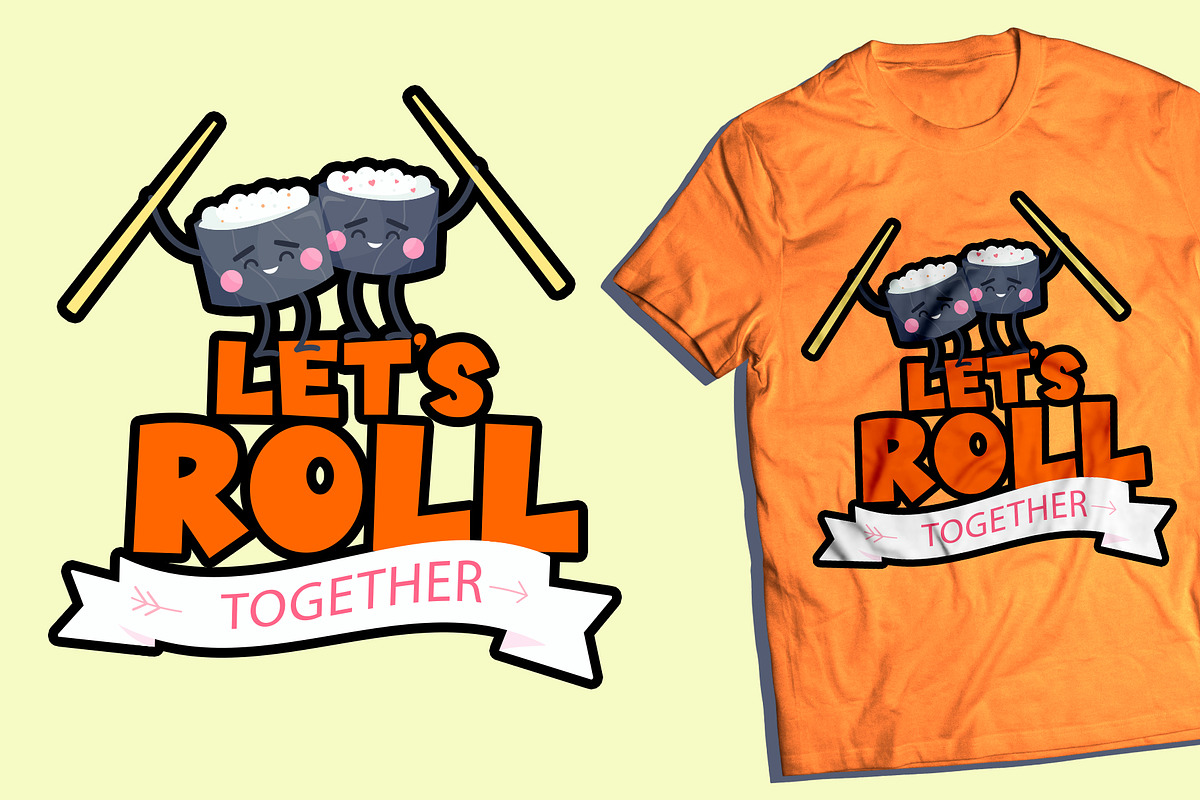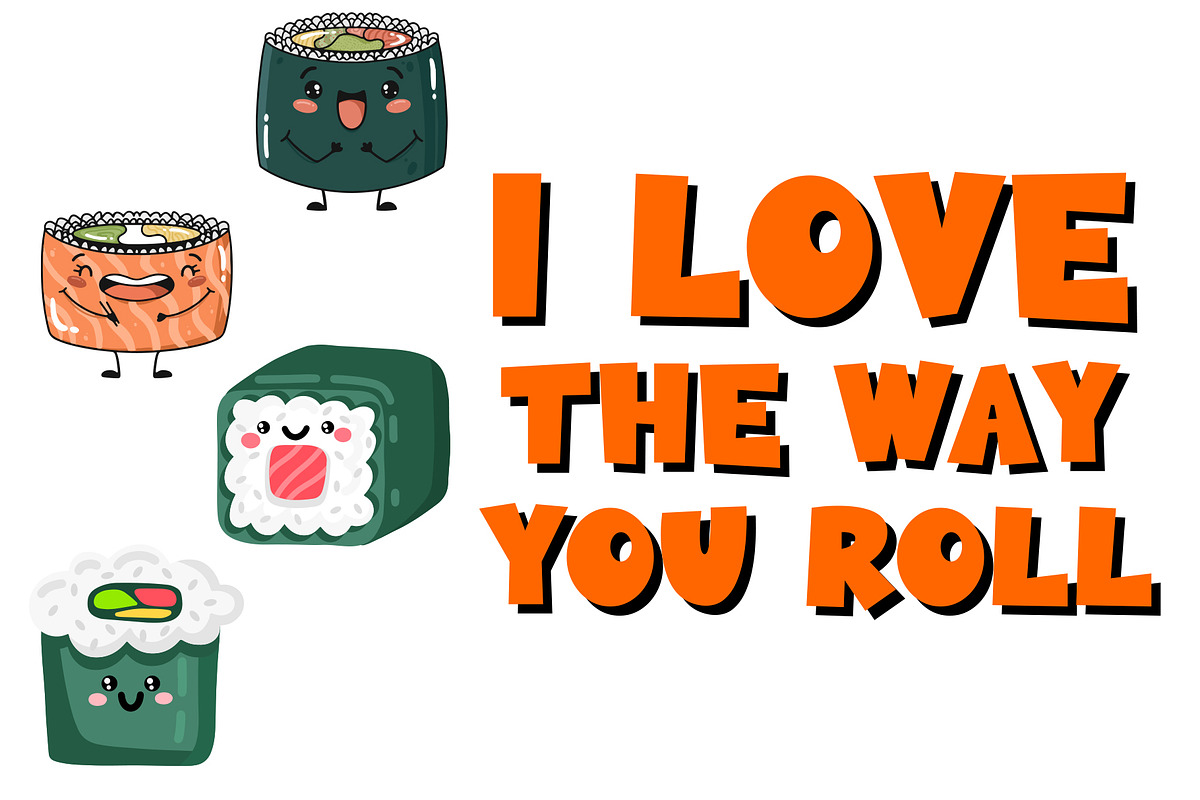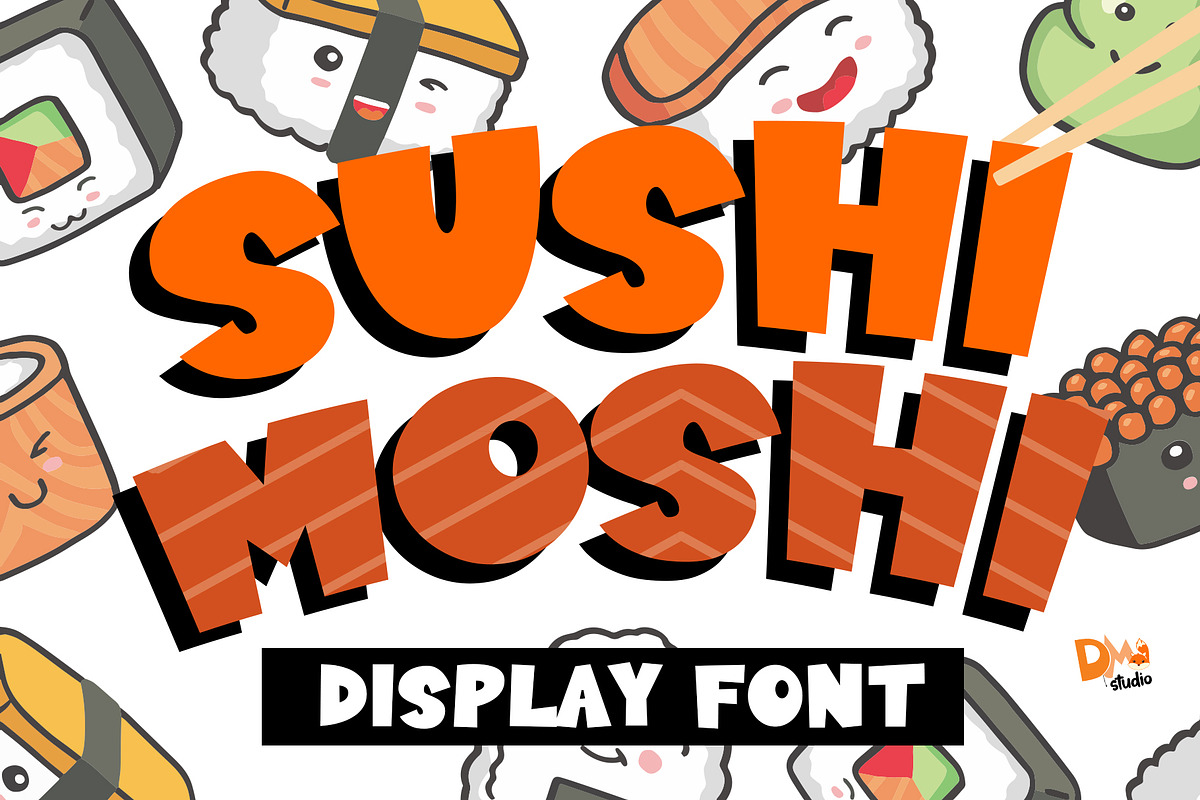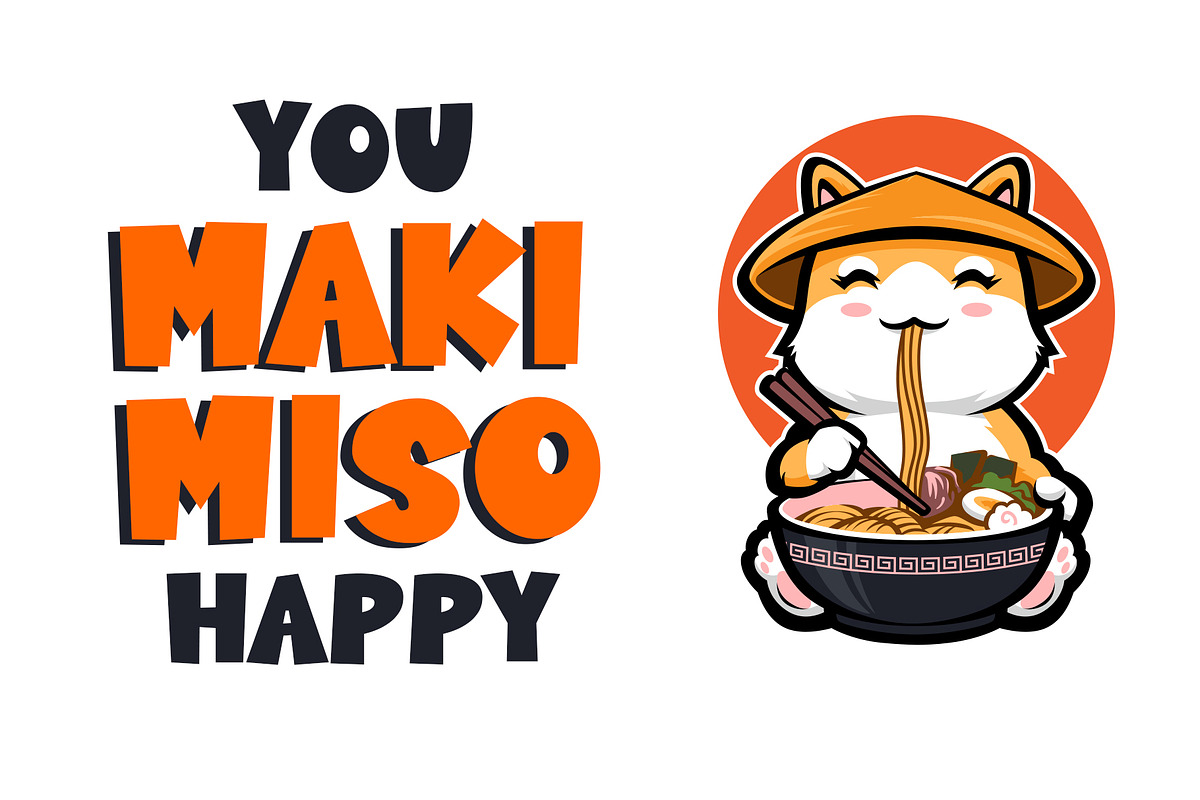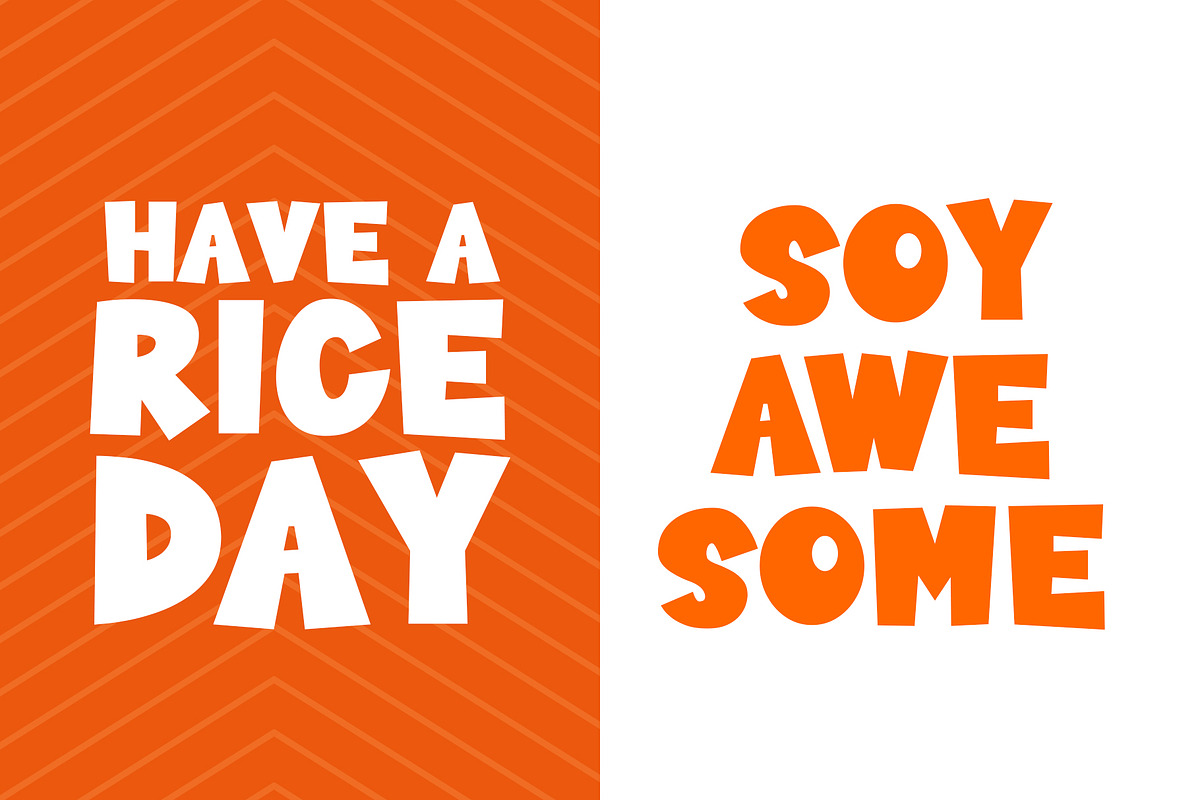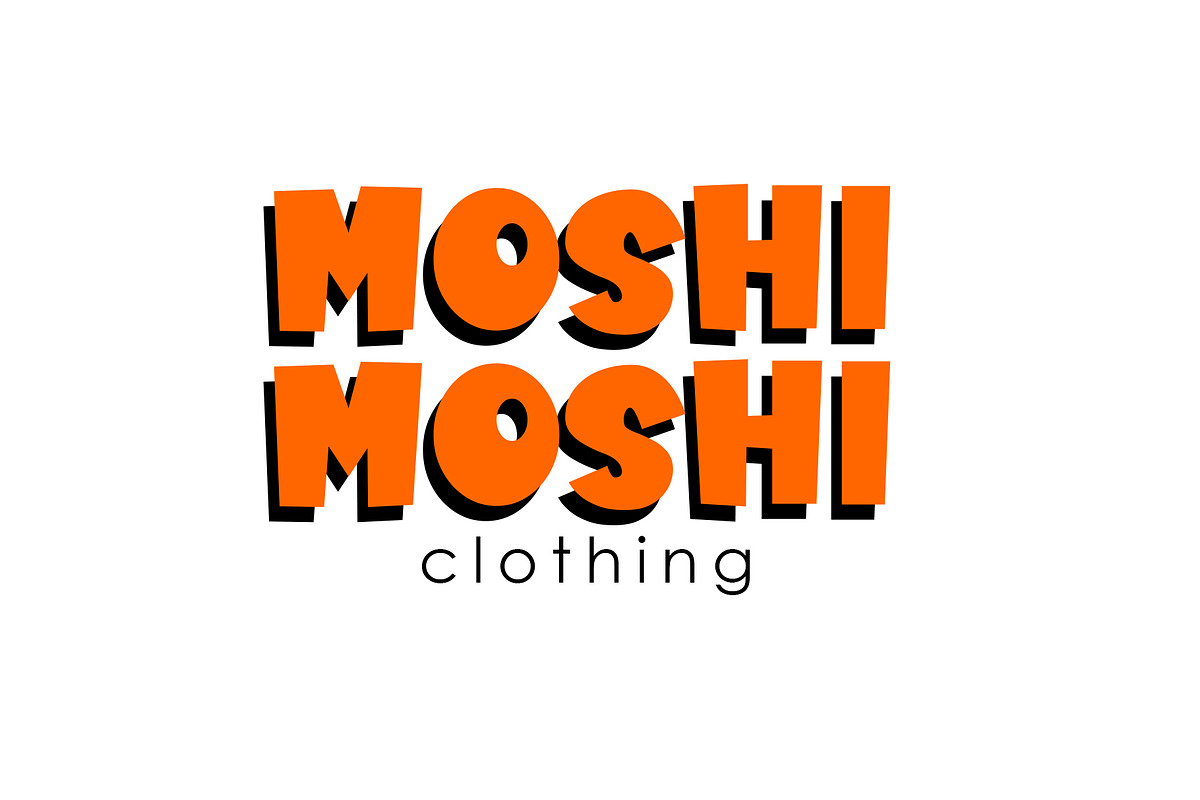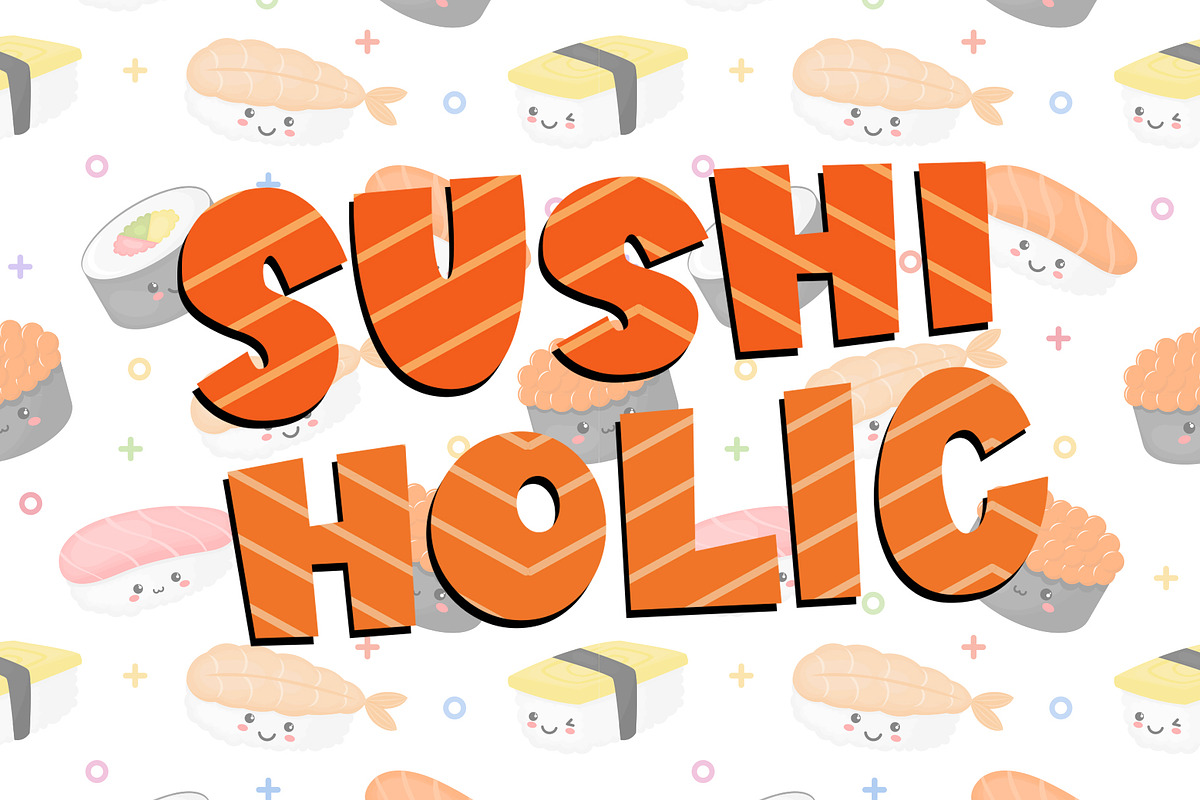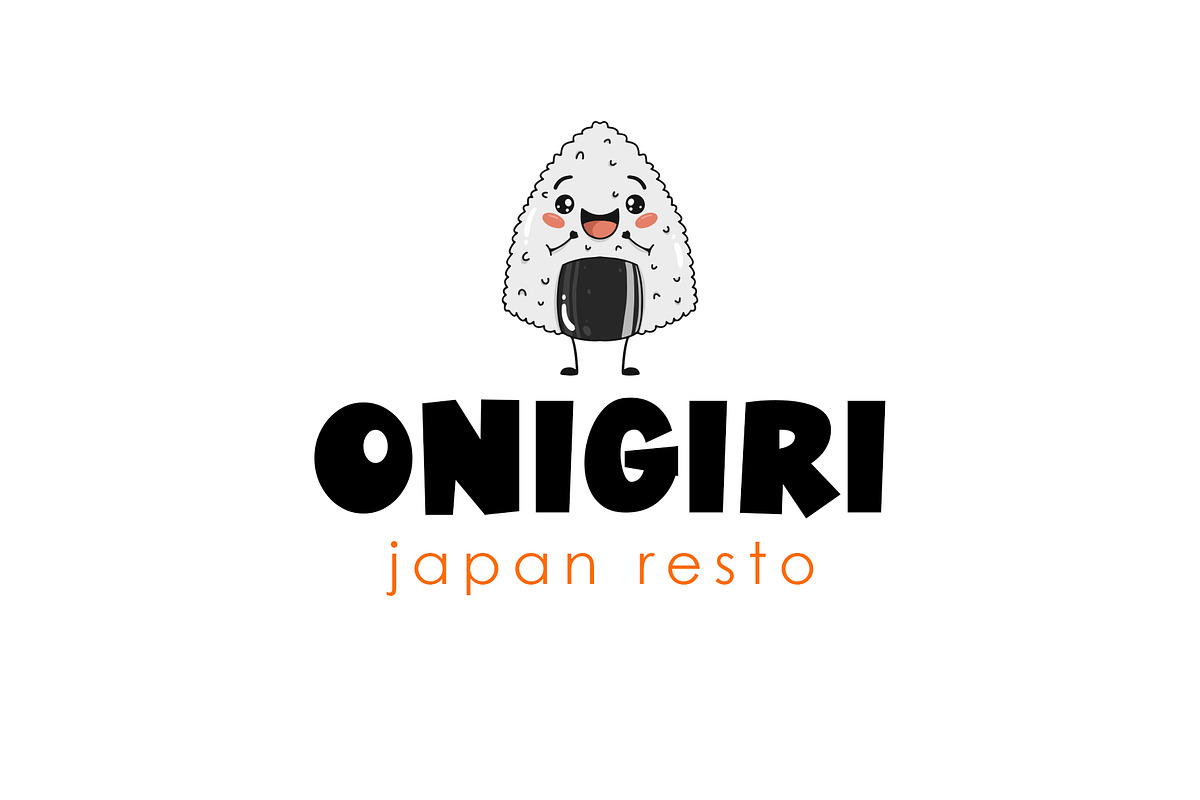
Sushi Moshi - Delicious Display Font
Introducing, Sushi Moshi Display Font! Fun, clean and quirky bold comical font style. Looks great and versatile for any design!
Sushi Moshi - Delicious Display Font by Dm Studio fits naturally into Branding, posters, packaging, typography.